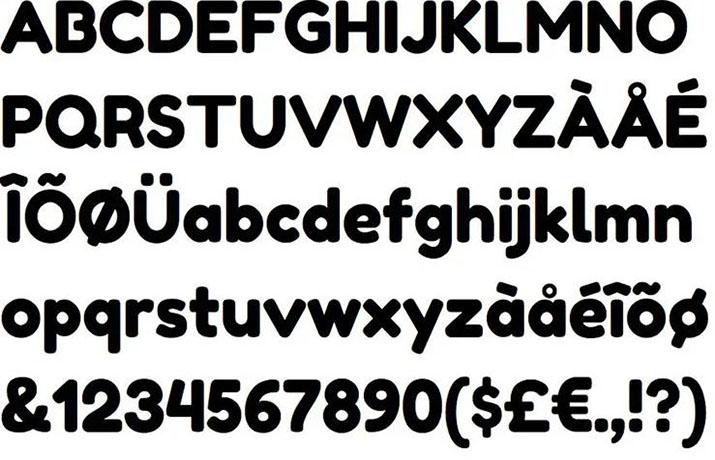
Fredoka One Font is a soft rounded display typeface that has a bold and playful style. It was designed and released by Milena Brandão, Hafontia.
Its bold texture has been created in a sans serif way but the designer makes its rounded edges just to lead it into a fancy category. That’s why now it has become the best choice for a friendly and playful design.
Its simple and clean look with heavy strokes makes it a good choice for various works such as children’s projects, toy posters, headers, retro, banners, logos, headlines, vintage, packaging brands, and more.
“Fredoka One typeface comes in a single style along with True Type features. This font has 335 glyphs, numbers, punctuation, and 13 ligatures. Moreover, it also supports 68 multilingual languages.”
- The rounded shapes of the letters make it ideal for logos, product packaging, product design, comic covers, game titles, game development, movie posters, unique marks, product design, special event cards, game graphics, product design, and special event cards. Printing on cartoons, children’s elements, headers, banners, flyers, headers, cards, and more.
What is Fredoka One Font?
Fredoka One Font is a soft rounded display typeface that has a bold and playful style. It was designed and released by Milena Brandão, Hafontia.